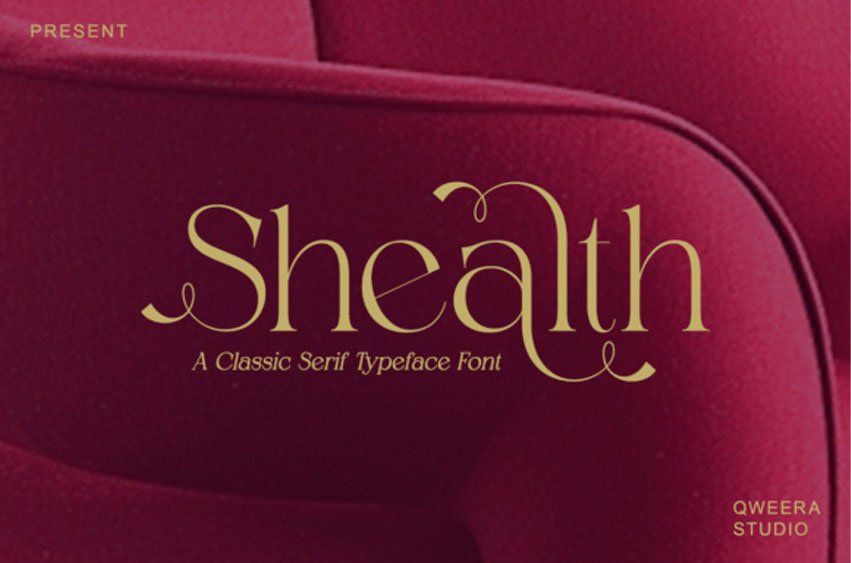
Shealth Font Elevate your branding to a realm of timeless grace with the Shealth font, a classic serif typeface that blends traditional structure with artistic flair.
This Shealth typeface is distinguished by its unique, elongated swashes and delicate curls that emerge from its terminals, giving it an air of high-fashion editorial design. The Shealth font is the ultimate choice for luxury logos, upscale magazine headers, and sophisticated wedding stationery.
Use the Shealth typeface whenever your project requires a balance of authoritative serif structure and soft, poetic movement.
Creative Usage & Decoration:
Monochrome Elegance: Best used in high-contrast black and white for a “Vogue” style layout.
Gold Foiling: Apply a metallic gold texture to the thin swashes to create premium packaging for jewelry or perfumes.
Pairing: Pairs beautifully with an ultra-thin, minimalist sans-serif to keep the focus on Shealth’s decorative curves.